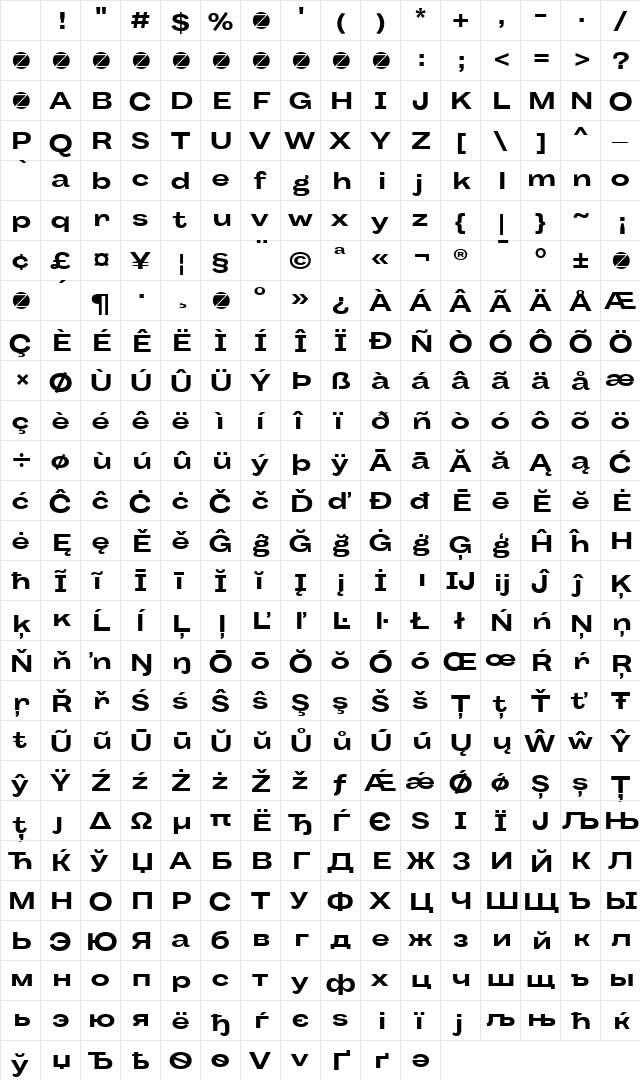
Body Grotesque Large Trial is a composed and adaptable typeface that performs quietly and consistently across a wide range of design contexts. Its bold stroke weight gives it real presence on the page.